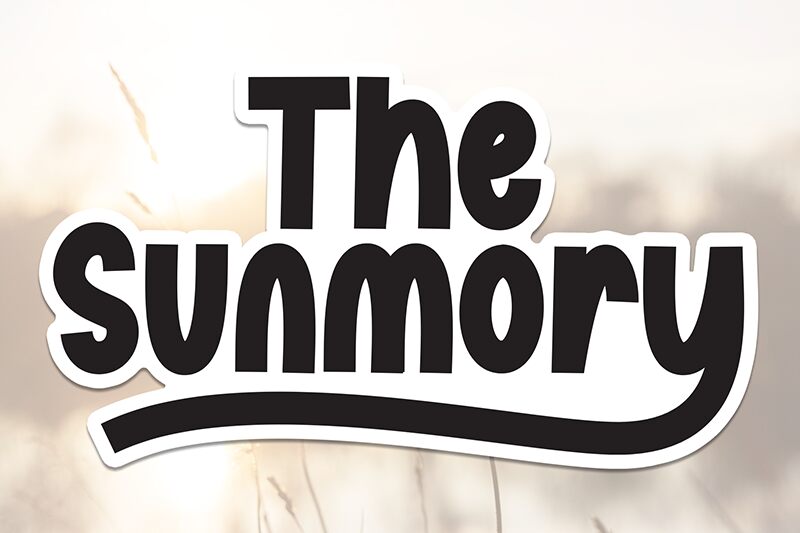
The Sunmory
The Sunmory font from Scratchones is a bold brush typeface with a casual and approachable appearance. Its whimsical letters radiate with artistic and friendly aesthetics for your various project applications. Make sure to discover all of these positive attributes by integrating this free handwritten font into your personal and professional works as well.
The Sunmory is suitable for designs relating to both adults and kids such as book covers, billboards, posters, social media posts, advertisements, organization/branding cards like postcards and business cards. Other options possible include t-shirts/hoodies, prints on mugs/bottles/shopping bags.